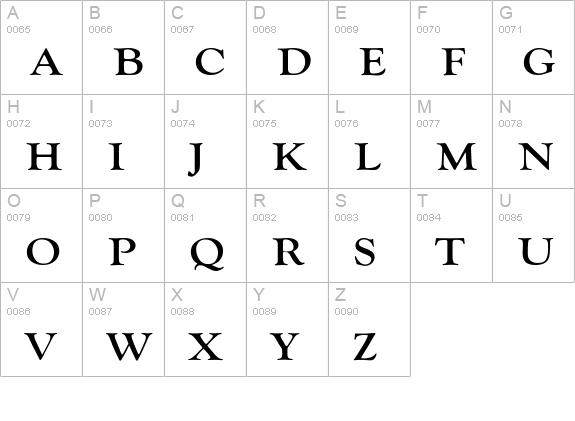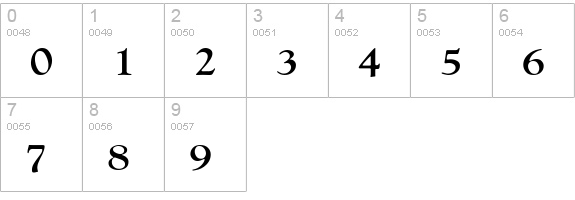
GoudyExt-Bold Font Details
GoudyExt-Bold is a strong, high-contrast variant in the GoudyExt typeface family \xE2\x80\x94 well suited to headlines, attention-grabbing titles, and strong calls-to-action.
GoudyExt-Bold is a stunning and versatile font that exudes elegance and sophistication. Its bold and distinctive letterforms make a strong statement in any design project, whether it be for headlines, logos, or branding materials. The classic yet modern style of GoudyExt-Bold adds a touch of timeless charm to any text. What makes GoudyExt-Bold even more appealing is that it is available for free download at FontsMarket.com. This means you can easily access this beautiful font and incorporate it into your creative endeavors without any cost. With its clean lines and strong presence, GoudyExt-Bold is sure to elevate your designs and make a lasting impression. Download it today and unlock the potential of this exceptional typeface.